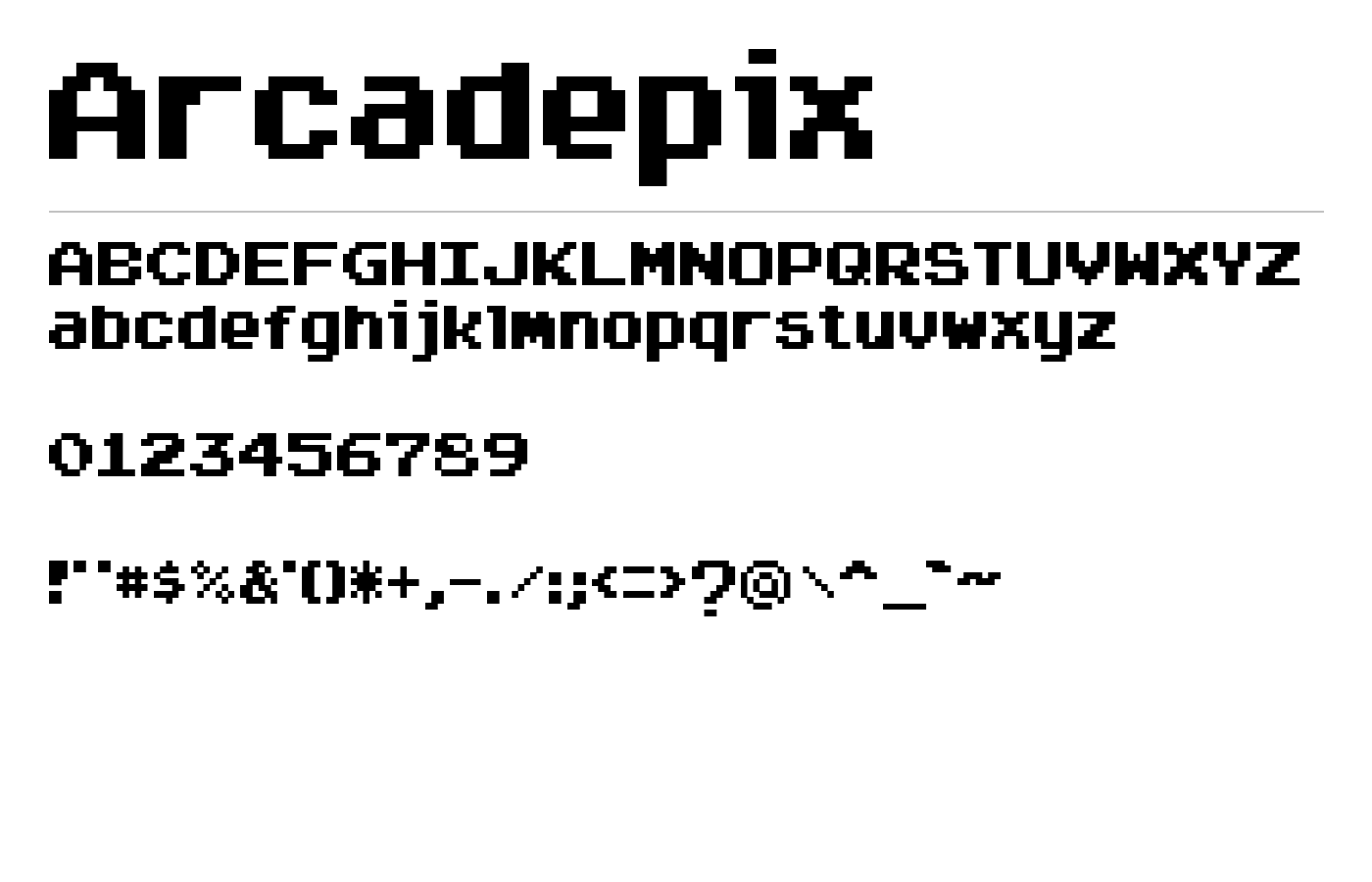
Arcadepix is a bold, pixelated sans serif font with a monospaced structure that evokes a nostalgic retro gaming vibe. Its blocky, geometric letterforms and uniform stroke weight make it ideal for digital displays, arcade-style branding, and playful, tech-inspired designs. This font works best in headlines, logos, and creative projects where a vintage computer or video game aesthetic is desired.
Arcadepix Font
About Arcadepix Font